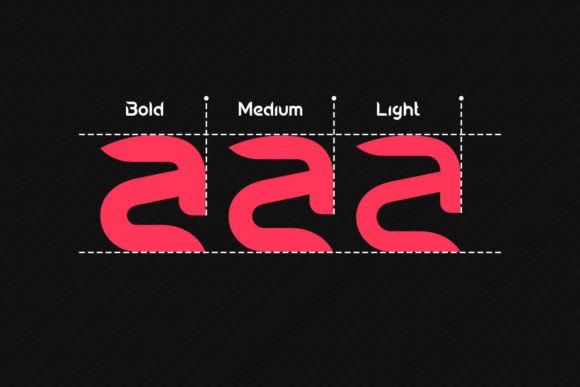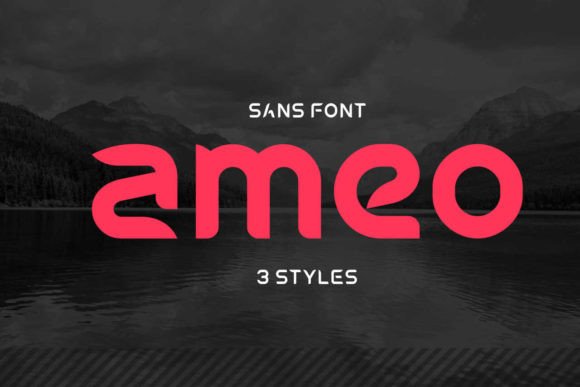
Ameo Font: Elevate Your Designs with Modern Elegance
Are you tired of using the same old fonts in your designs? Look no further than Ameo, a stunning modern sans-serif font that combines flowing lines with sharp edges to create a truly unique visual experience. With Ameo, you can add a touch of sophistication and elegance to your projects, making it perfect for designers and crafters looking to take their work to the next level.
The Ameo Advantage: A Perfect Blend of Style and Versatility
Ameo is more than just a font – it’s a design statement. Its modern sans-serif style makes it perfect for a wide range of applications, from branding and advertising to packaging and digital media. The font’s flowing lines and sharp edges create a beautiful contrast that adds visual interest to any design, making it perfect for headlines, titles, and short paragraphs of text.
Key Features of Ameo Font
- Modern Sans-Serif Style: Ameo boasts a clean and contemporary sans-serif design that fits perfectly into today’s design trends.
- Flowing Lines and Sharp Edges: The unique combination of flowing lines and sharp edges gives Ameo its distinctive look, making it stand out from other fonts.
- Highly Versatile: Whether you’re working on a digital project or a print design, Ameo adapts seamlessly to various mediums.
- Ease of Use: Designed with the user in mind, Ameo is easy to read and works well for both headings and body text.
Why Choose Ameo for Your Projects?
Choosing Ameo for your design projects comes with numerous benefits. Its unique style ensures that your work stands out in a crowded field, making it perfect for designers looking to leave a lasting impression. Additionally, Ameo’s versatility means you can use it across a variety of projects, from sleek corporate branding to creative craft projects.
Applications of Ameo Font
Ameo’s flexibility makes it suitable for a wide array of design applications, including:
- Branding and Logos: Create a memorable brand identity with Ameo’s distinctive style.
- Digital Media: Enhance your website, social media posts, and digital ads with a modern and engaging font.
- Print Design: From brochures and posters to business cards and packaging, Ameo brings a touch of elegance to any print material.
- Crafting and DIY Projects: Add a professional and stylish look to your craft projects, such as handmade cards, journals, and more.
How to Get the Most Out of Ameo
To maximize the impact of Ameo in your designs, consider the following tips:
- Experiment with Sizes: Play around with different font sizes to create visual hierarchy and emphasize key points.
- Mix and Match: Combine Ameo with other fonts to create interesting contrasts and dynamic designs.
- Adjust Line Spacing: Optimize readability by adjusting the line spacing according to your design’s needs.
Ameo is more than just a font – it’s a tool that can elevate your designs to new heights. Its unique blend of modern sans-serif style, flowing lines, and sharp edges makes it a versatile and stylish choice for any project. Whether you’re a professional designer or a crafting enthusiast, Ameo is sure to become a favorite in your collection. So why wait? Add Ameo to your projects today and experience the difference for yourself!